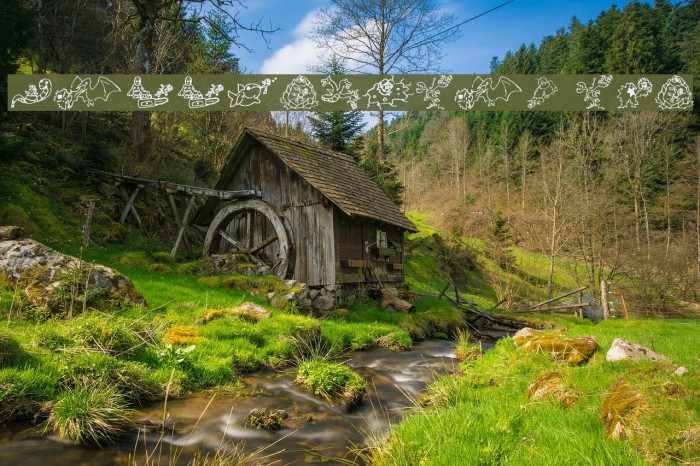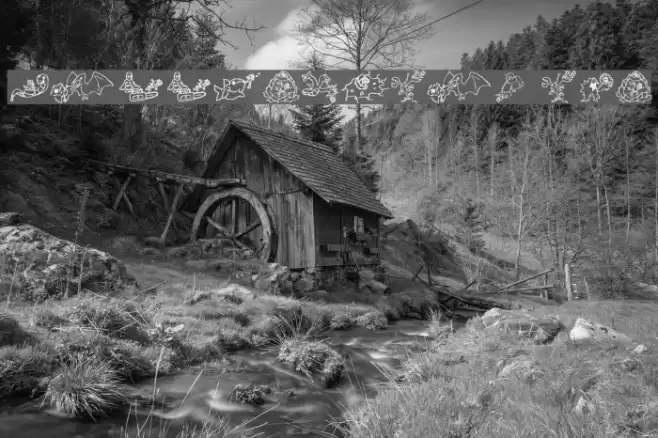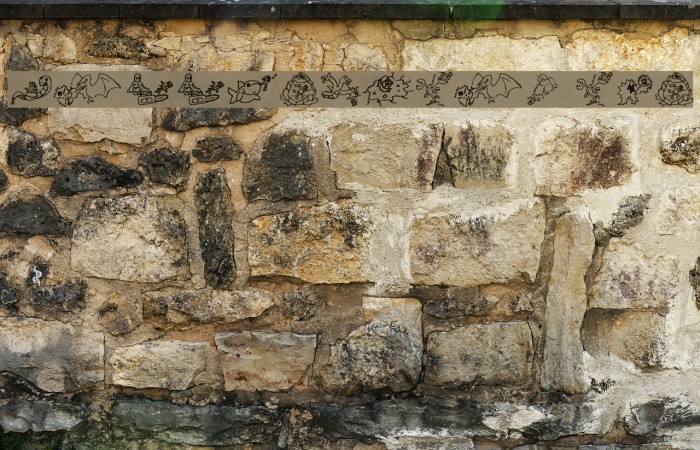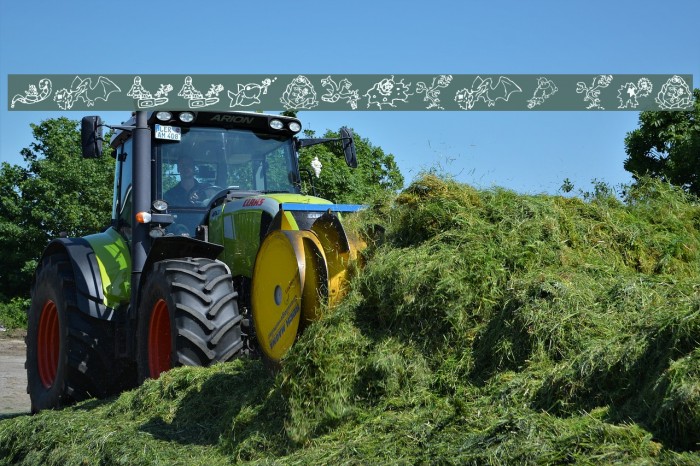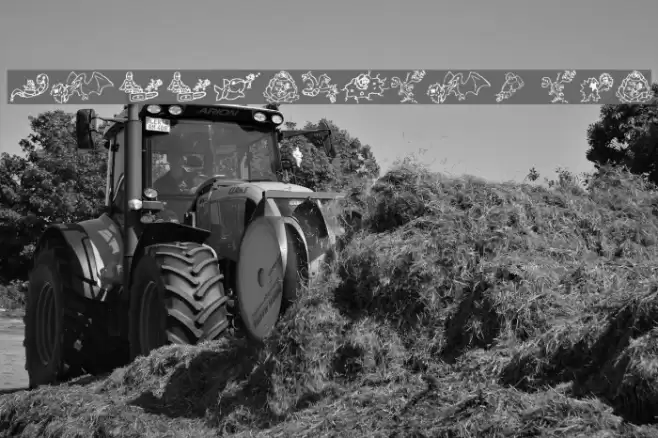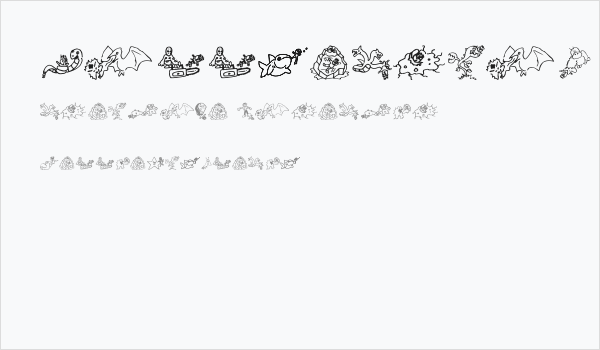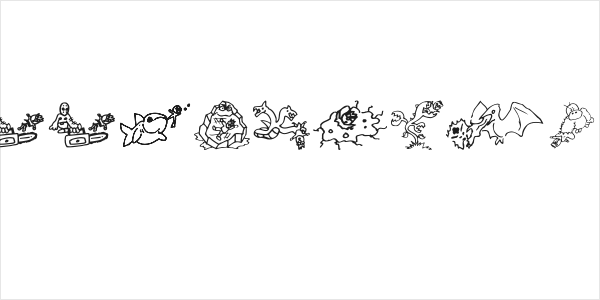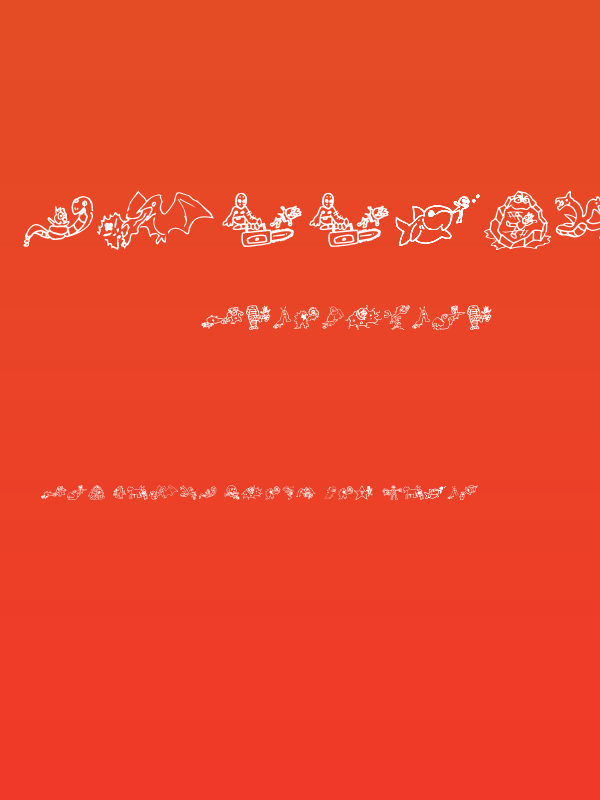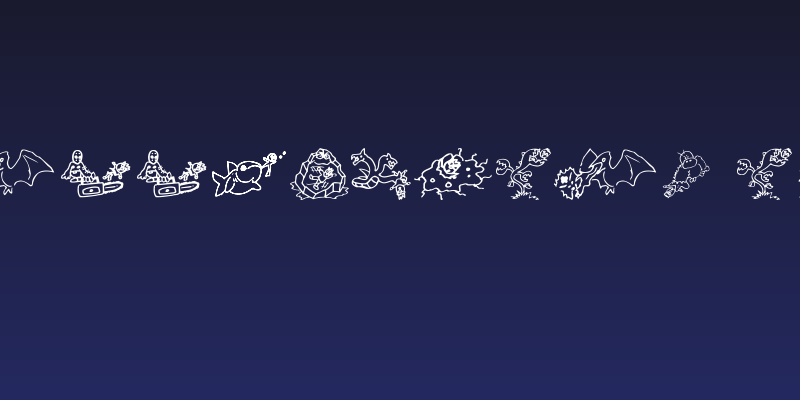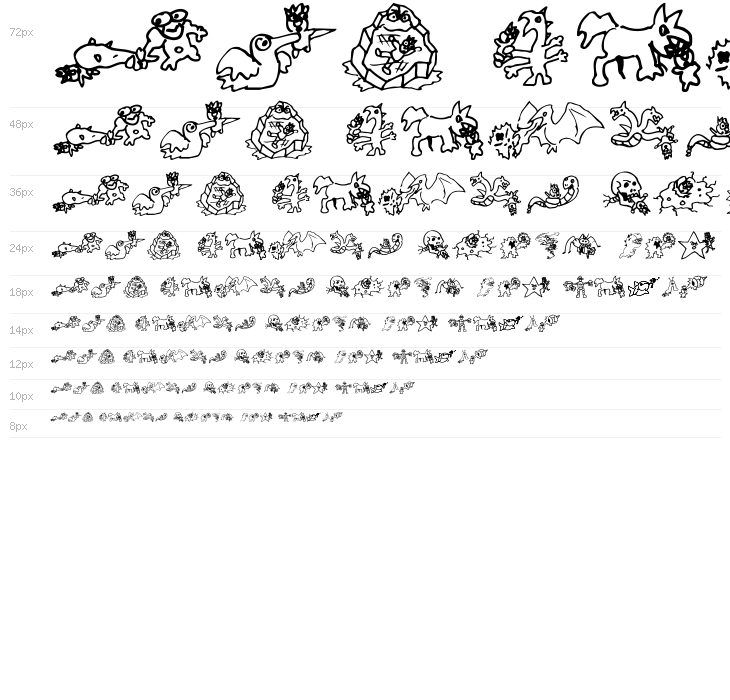
KillMeCraig AOE Font
KillMeCraig AOE Description
This font is a playful and whimsical collection of cartoon-like characters and creatures. Each character is uniquely designed with intricate details, showcasing a variety of imaginative figures such as animals, mythical creatures, and humorous figures. The style is highly decorative, with each glyph resembling a small piece of art rather than a traditional letterform. The font is not meant for standard text but rather for creative projects where a fun and artistic touch is desired. The characters are bold and expressive, making them stand out individually.
| Use Case | Logos, Posters, Artistic projects |
| Proposed Projects | Ideal for children's books, comic strips, playful posters, and creative design projects where a unique and artistic touch is needed. |